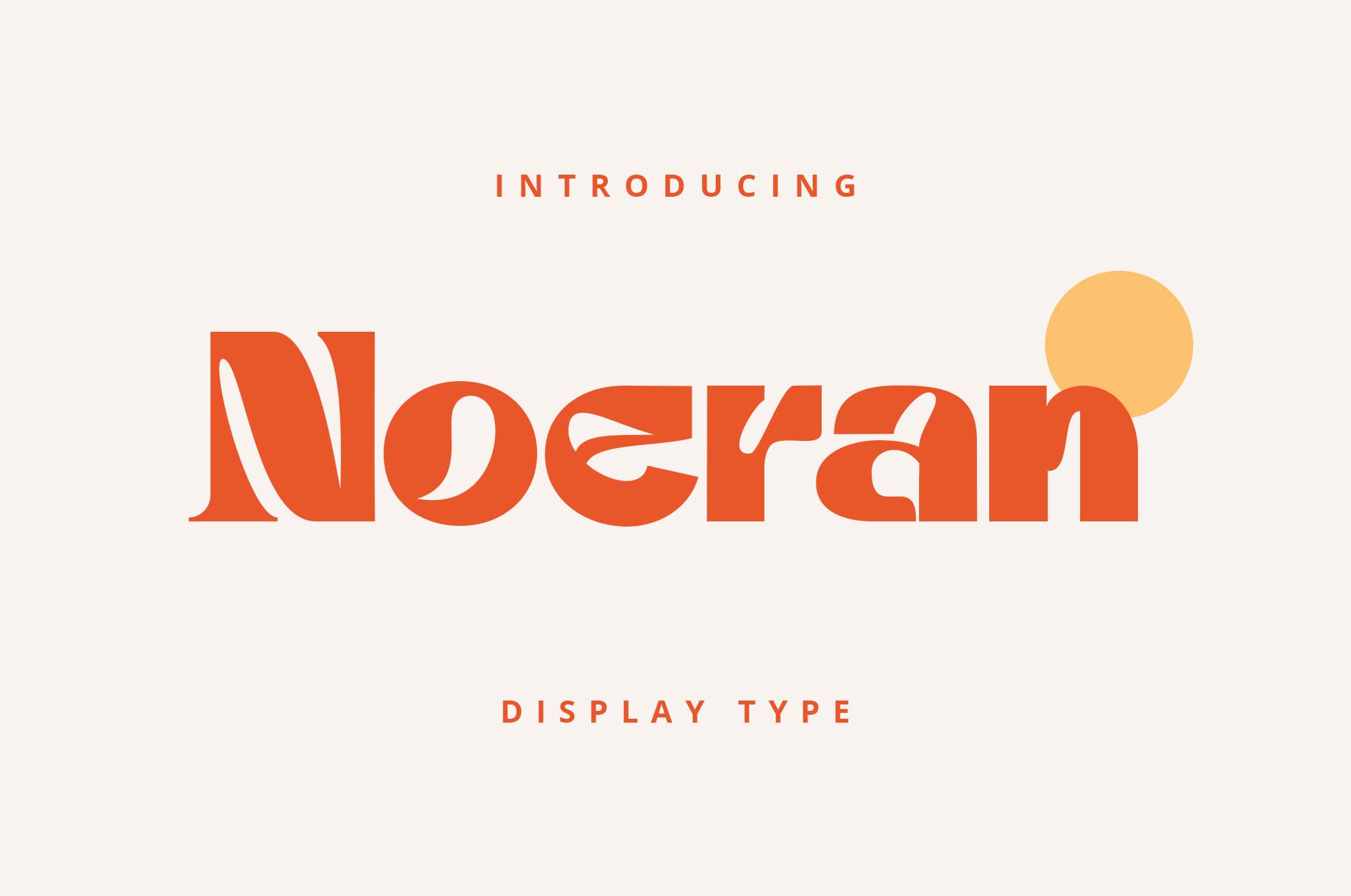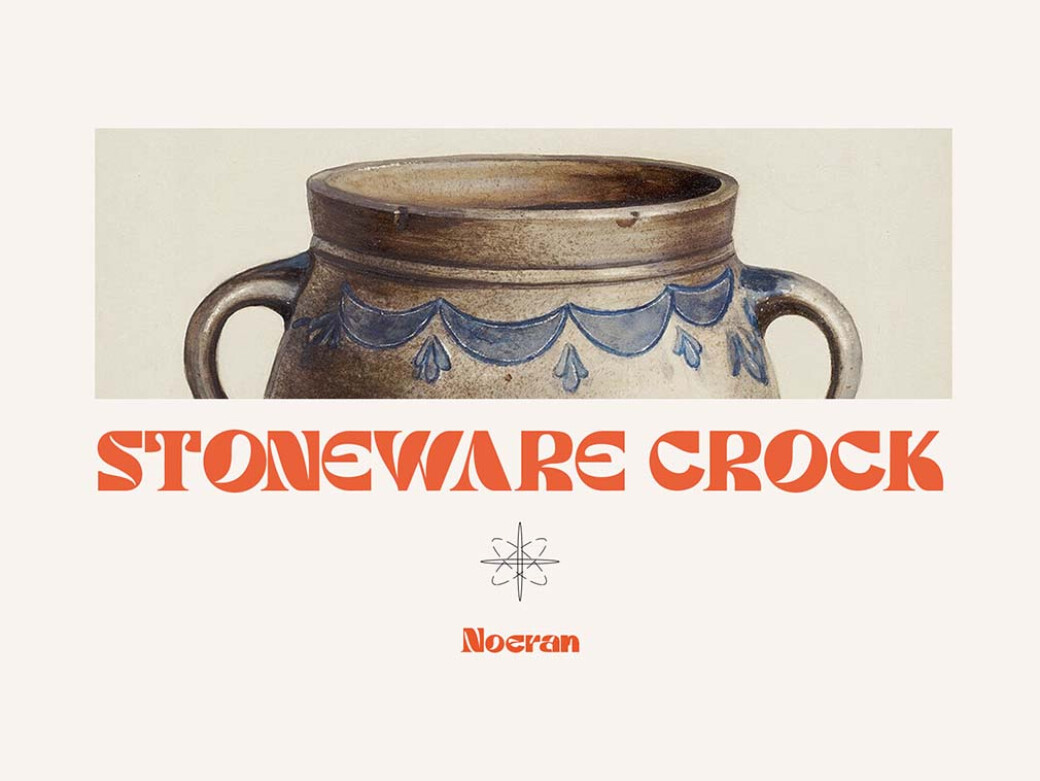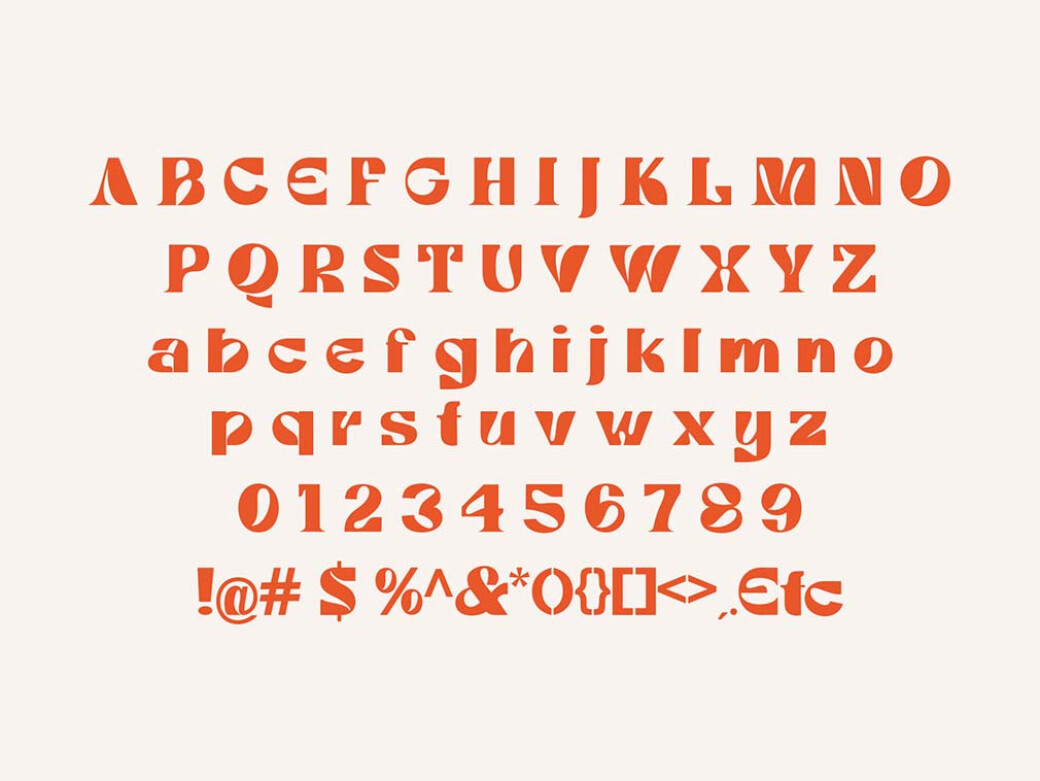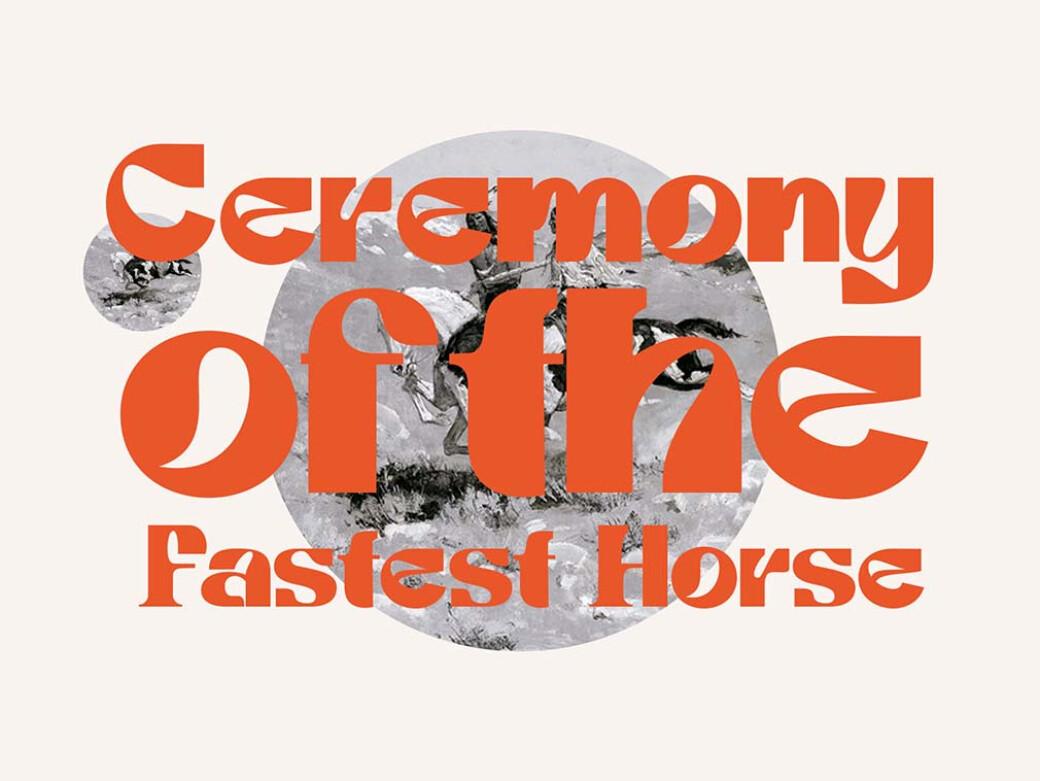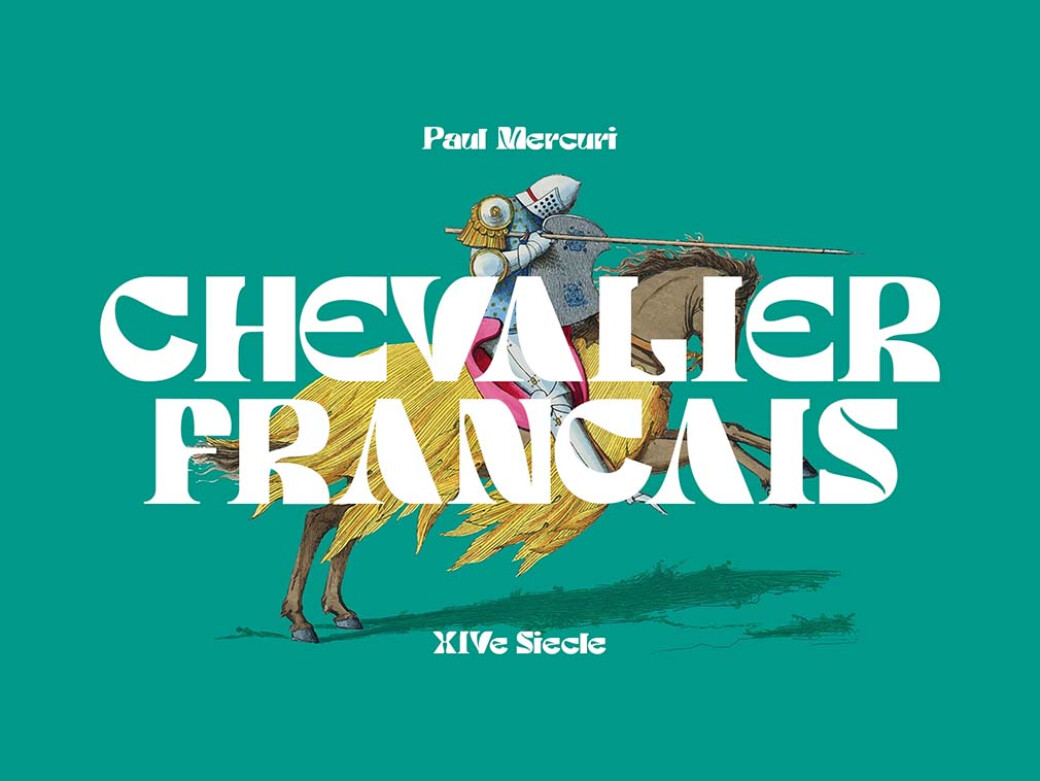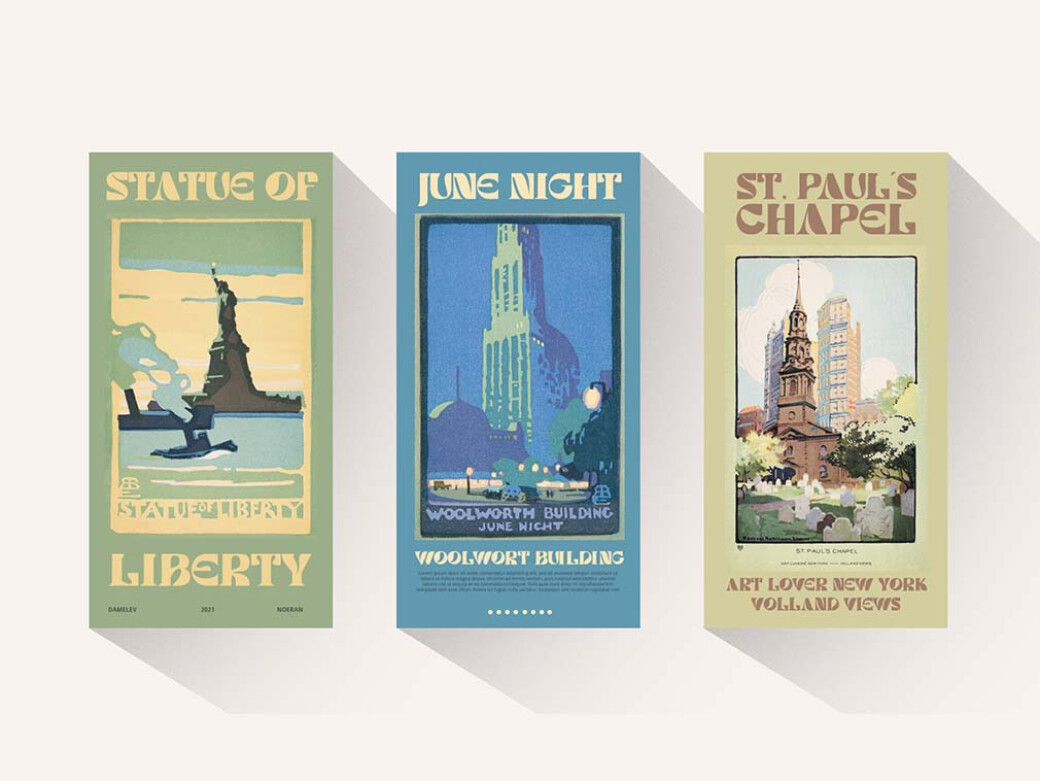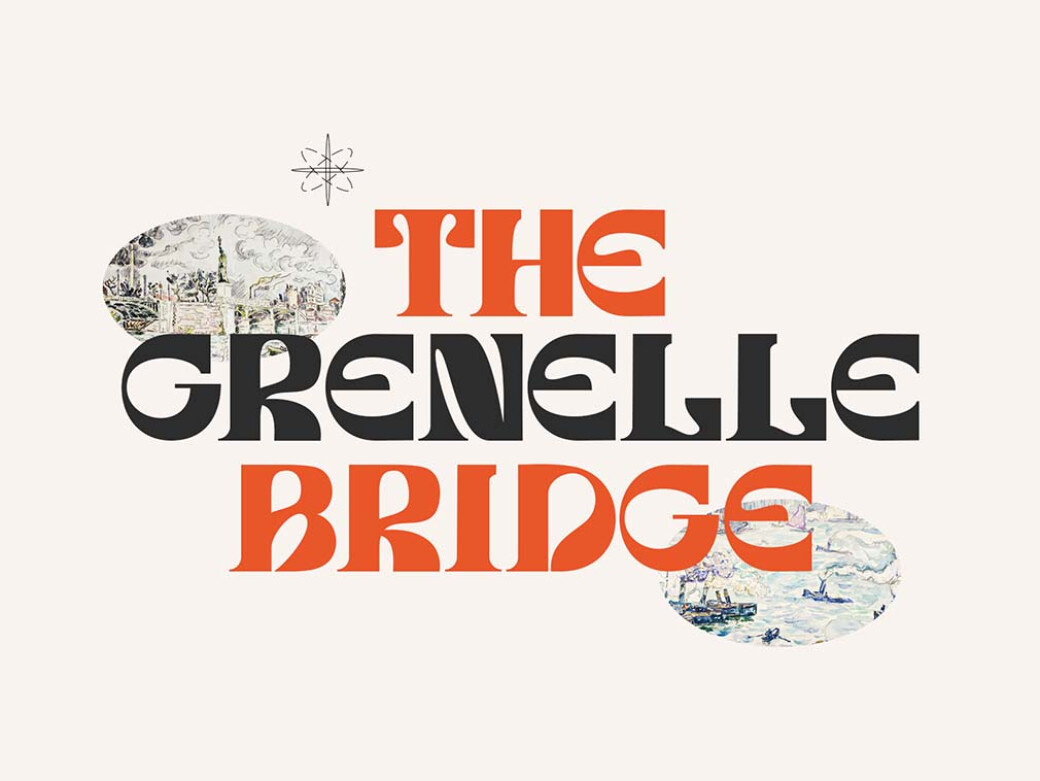
Noeran Display Font
Strong and dramatic — these are the best words to describe Noeran. The temptation to add this bold font to your collection must be immense, so why resist it?Noeran is a bold slab typeface. It demonstrates solid and scenic letterforms perfect for titling and branding. It also has an ultimately legible typestyle, making it equally suitable for logos, advertising, music albums, and book covers. You'll find it tricky to classify Noeran as a modern or classic one, and this ubiquity of styles is another huge perk that allows you to use it with no attachment to the overall image. Just pick it because you like it, and Noeran will instantly fit the picture! The font provides uppercase and lowercase characters, numbers, and punctuation. You can access the open type features and multilingual on mostly Adobe programs, such as Adobe Indesign, Adobe Illustrator, Adobe Photoshop, etc.